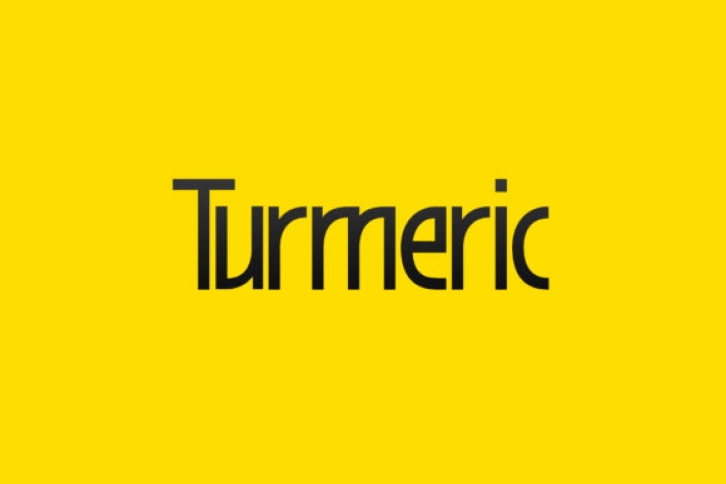
Turmeric typeface is a stylish and incredibly elegant sans serif font. It looks stunning on wedding invitations, thank you cards, quotes, greeting cards, logos, business cards and every other design which needs a creative touch.